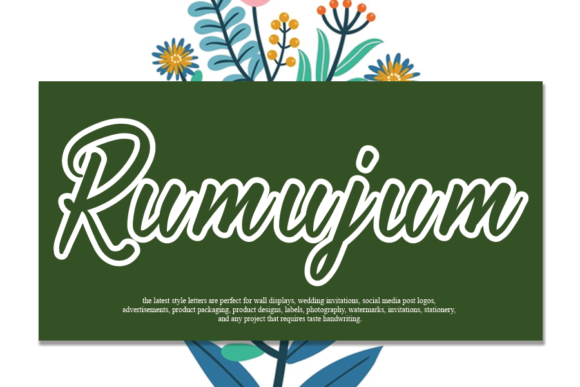
Rumujum Font: Elegant Script Handwritten Branding
As a small business owner, finding the right visual voice is often just as important as the product itself, and Rumujum is a flowing handwritten font that bridges the gap between personal charm and professional polish. When you are managing everything from inventory to Instagram content, you need design assets that work hard for your brand without requiring a degree in graphic design. This typeface offers an elegant touch that feels intentional rather than accidental, helping independent creators establish a cohesive identity across every customer touchpoint. Whether you are launching a new boutique or refreshing an established service business, understanding how to leverage this distinct style can transform generic materials into memorable brand experiences.
Rumujum for Product Packaging and Label Design
Rumujum is a flowing handwritten font described by an elegant touch, making it exceptionally effective for product packaging where shelf appeal dictates purchasing decisions. In the world of handmade goods, artisanal foods, or beauty products, customers are looking for visual cues that signal quality and care before they even read the ingredients list. Using Script Handwritten fonts like this one on labels creates an immediate emotional connection, suggesting that a real person crafted the item inside. For a candle maker or a specialty coffee roaster, applying this typeface to the primary label acts as a signature, distinguishing your goods from mass-produced competitors who rely on sterile, corporate typography.
However, practical application requires balancing aesthetics with legibility on physical surfaces. When designing product labels, use Rumujum for the product name or a short tagline rather than dense informational text. Its distinct letterforms shine at larger sizes where the flowing connections remain clear, but they may become difficult to decipher when scaled down for mandatory compliance text or ingredient lists. A smart strategy is to reserve this expressive font for the "hero" elements of your packaging—the front-facing label, the box lid, or the tissue paper sticker—while pairing it with a clean sans serif font for the back-of-pack details. This ensures your branding remains spectacular and readable, meeting both marketing goals and regulatory requirements.
Elevating Social Media Graphics with Rumujum Typography
Rumujum and other creative Fonts serve as powerful hooks in social media feeds where scrolling speed demands instant visual recognition. For entrepreneurs managing their own marketing, consistency is key to building trust, and using a signature typeface across Instagram stories, Pinterest pins, and Facebook ads creates a unified visual thread. The timeless style of this script works particularly well for quote graphics, announcement overlays, and promotional banners because it mimics the intimacy of a personal note while maintaining the authority of a established brand. When your audience sees that specific elegant flow, they should instantly associate it with your business, reducing the cognitive load required to recognize your content amidst a crowded feed.
To maximize impact on digital platforms, consider how the font interacts with background imagery and negative space. Because Rumujum has such a distinct personality, it needs room to breathe; cluttering it behind busy product photos can diminish its elegance. Try placing white or gold text over solid color blocks or blurred sections of lifestyle photography to ensure high contrast and readability on mobile screens. This approach is especially effective for service-based businesses like coaches or consultants who need to convey warmth and expertise simultaneously. By treating your social media typography as a core component of your brand identity rather than an afterthought, you turn every post into a reinforcement of your professional image.
Rumujum for Wedding Stationery and Event Branding
Fall in love with the incredibly distinct and timeless style of Rumujum when creating high-stakes print materials like wedding invitations, event programs, and luxury stationery. For business owners in the wedding and events industry, or those offering custom printing services, this font provides a premium alternative to overused calligraphy scripts that have saturated the market. Clients seeking sophistication want something that feels bespoke yet legible, and the flowing nature of this typeface delivers that balance perfectly. It communicates romance and refinement without veering into illegibility, which is crucial when guests need to quickly parse dates, times, and venue locations on printed cards.
Beyond the invitation suite, this Script Handwritten font extends beautifully to ancillary event materials that reinforce the client’s brand experience. Think about welcome signs, table numbers, menu cards, and favor tags; using Rumujum across these items creates a seamless narrative from the mailbox to the reception hall. For stationers and designers, offering this typeface as part of a curated collection can justify higher price points because it signals access to exclusive, high-quality design assets. Just remember to test print samples on your chosen paper stock, as ink spread on textured cardstock can sometimes alter the delicate weight of handwritten strokes, ensuring the final result remains as spectacular on paper as it does on screen.
Pairing Rumujum with Clean Sans Serif Fonts for Websites
Rumujum is a flowing handwritten font perfect for your favorite projects, but it achieves true professional versatility when paired strategically with complementary typefaces for web design. A common mistake small business owners make is using a decorative font for body copy, which fatigues readers and increases bounce rates. Instead, utilize Rumujum strictly as a display font for website headers, hero banners, and call-to-action buttons to inject personality, while relying on a neutral sans serif or simple serif font for paragraphs and navigation. This hierarchy guides the user’s eye effectively, allowing the elegant script to act as a visual accent that enhances usability rather than hindering it.
When implementing this font pairing on your site, consider the technical aspects of loading and rendering. Ensure you have the proper web font files optimized for performance so that your elegant branding doesn't slow down page load times, which can hurt SEO and conversion rates. Additionally, always check how the font renders across different browsers and devices; what looks fluid on a desktop monitor might appear cramped on a smartphone. Testing is non-negotiable for maintaining a trustworthy online presence. By anchoring your site’s personality with Rumujum while prioritizing readability through supportive typography, you create a digital storefront that feels both inviting and professionally competent.